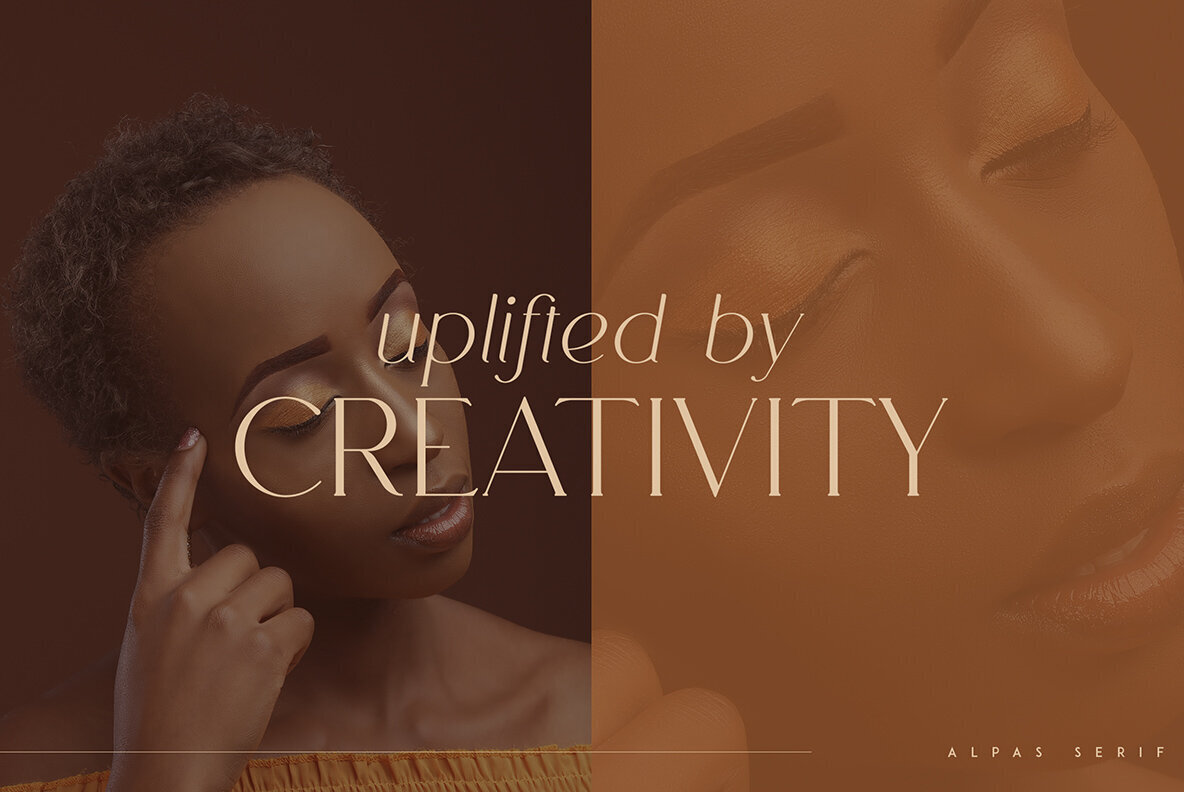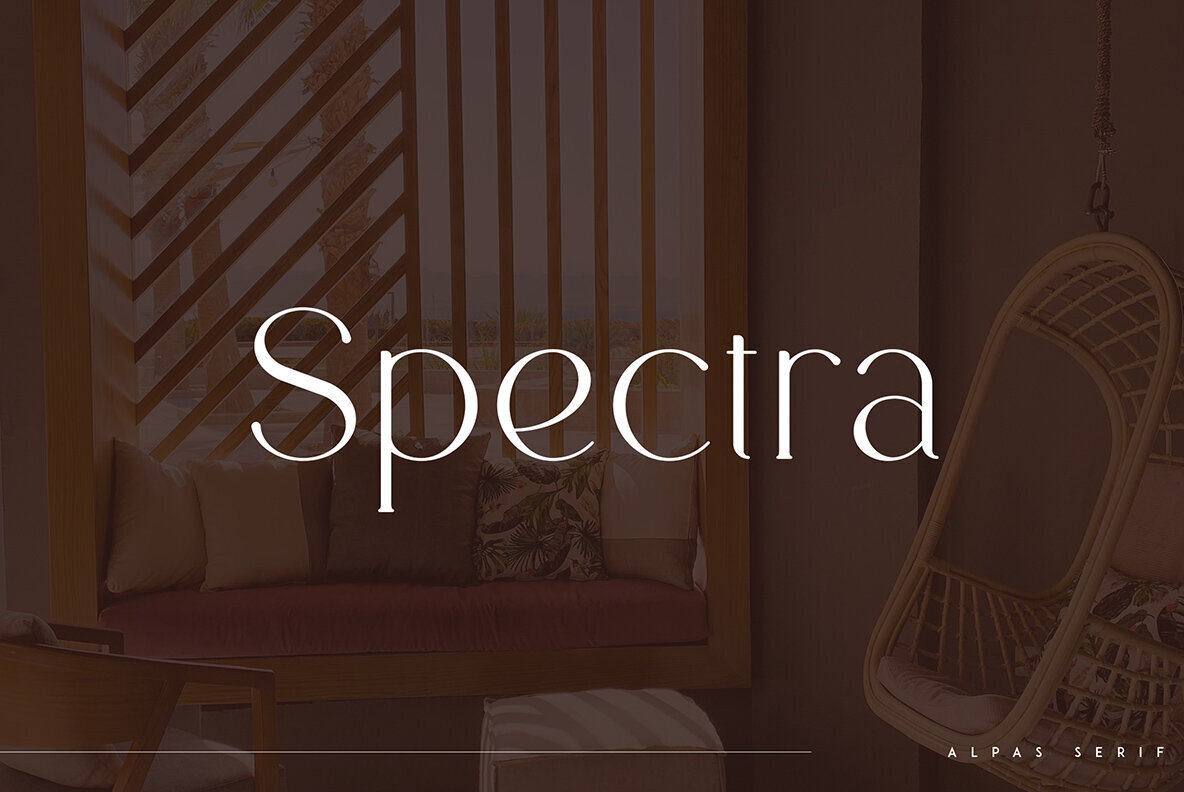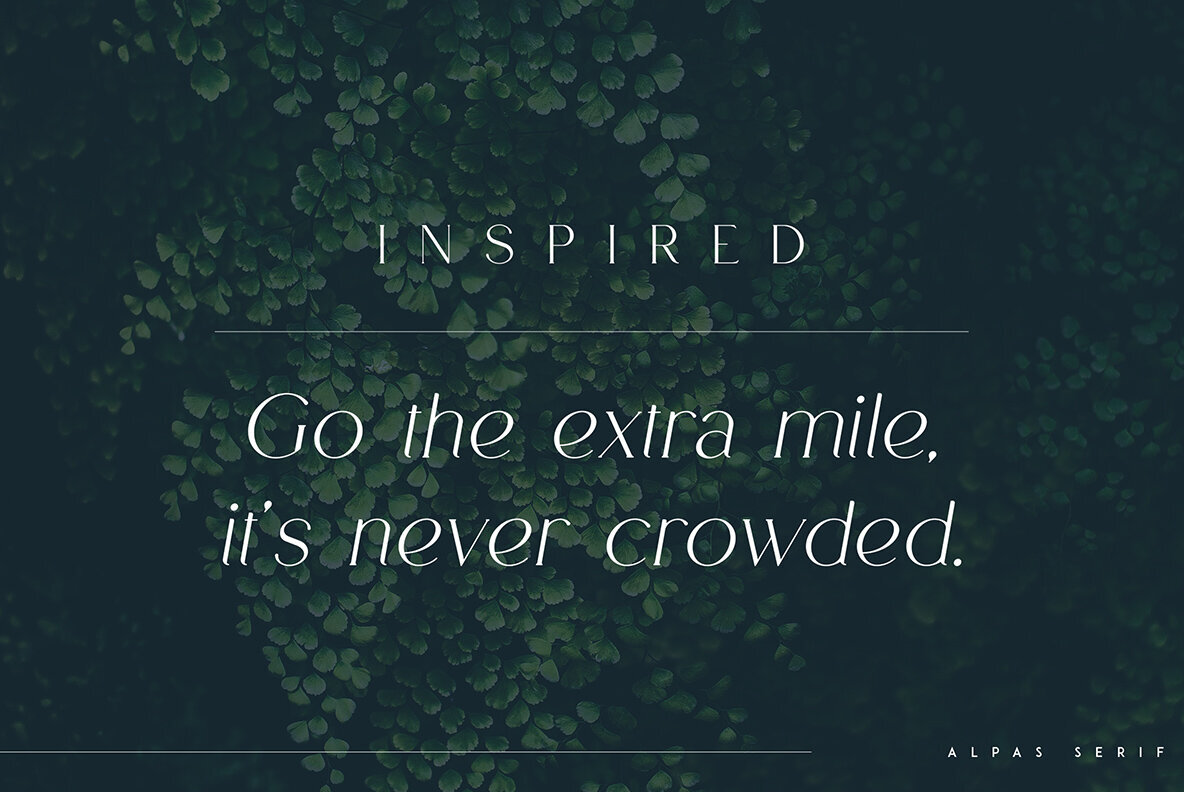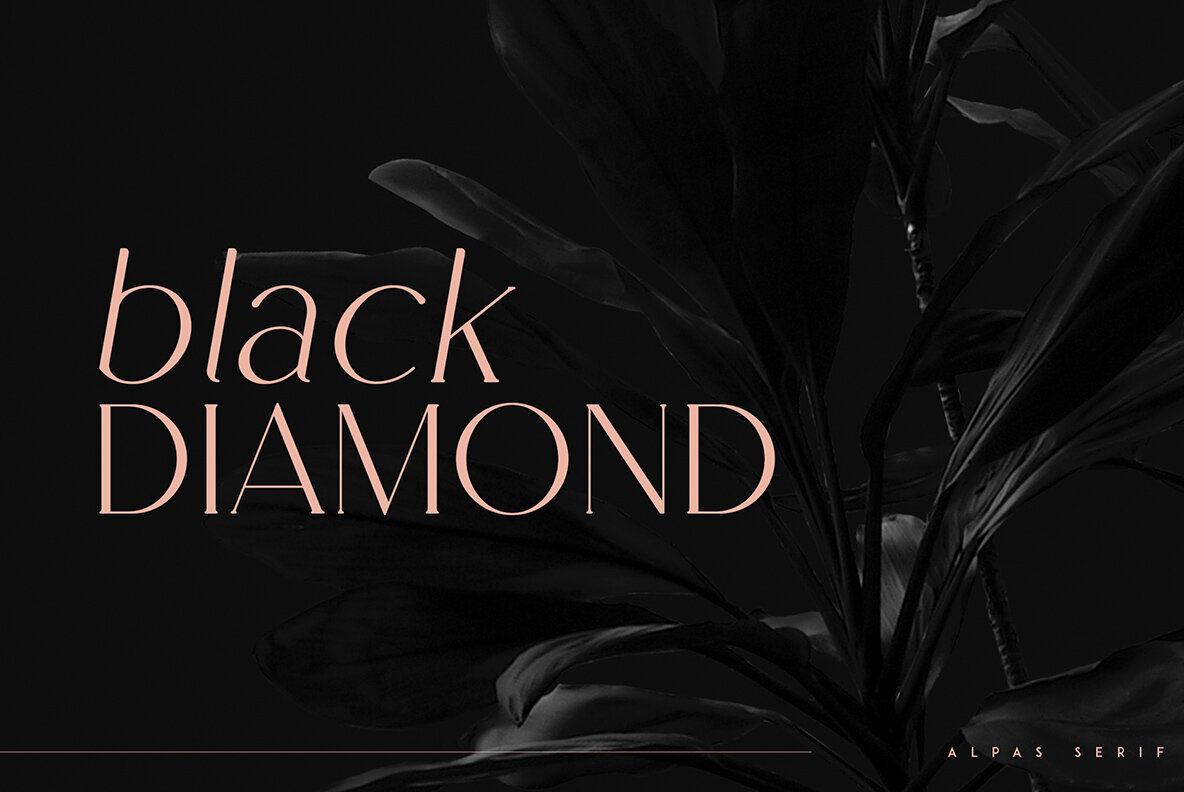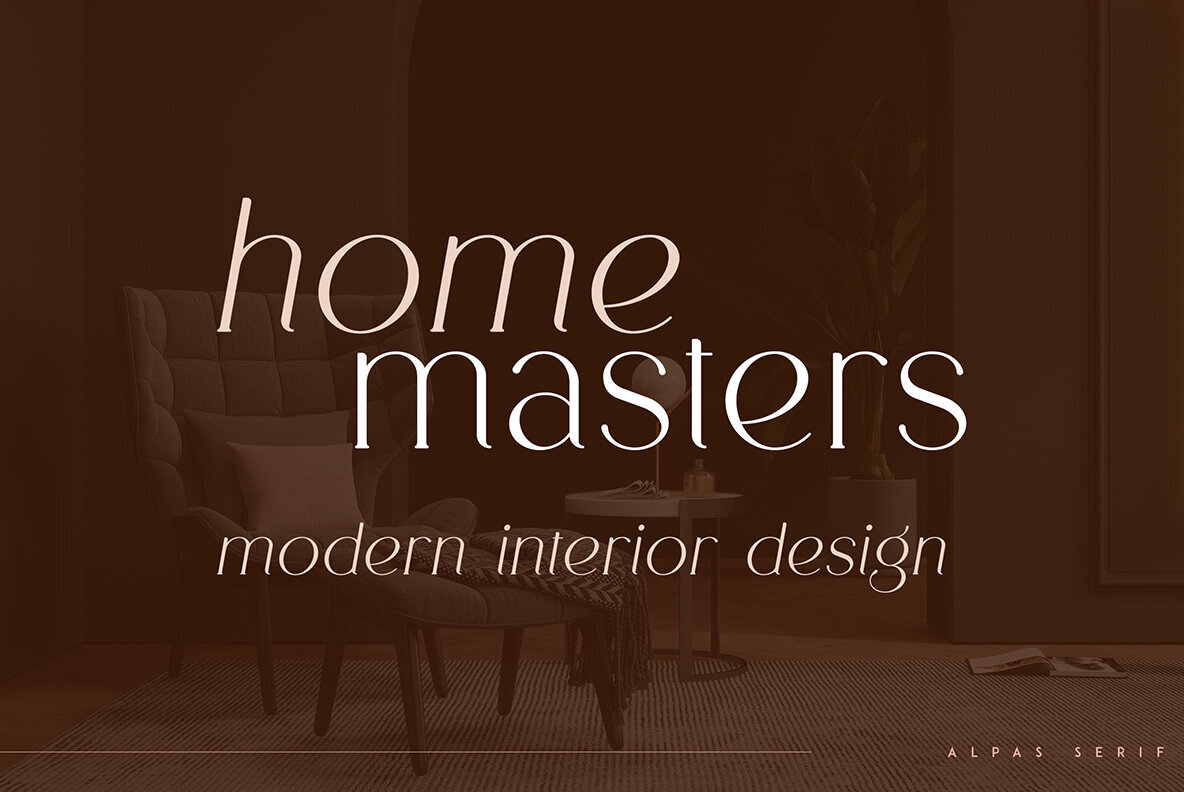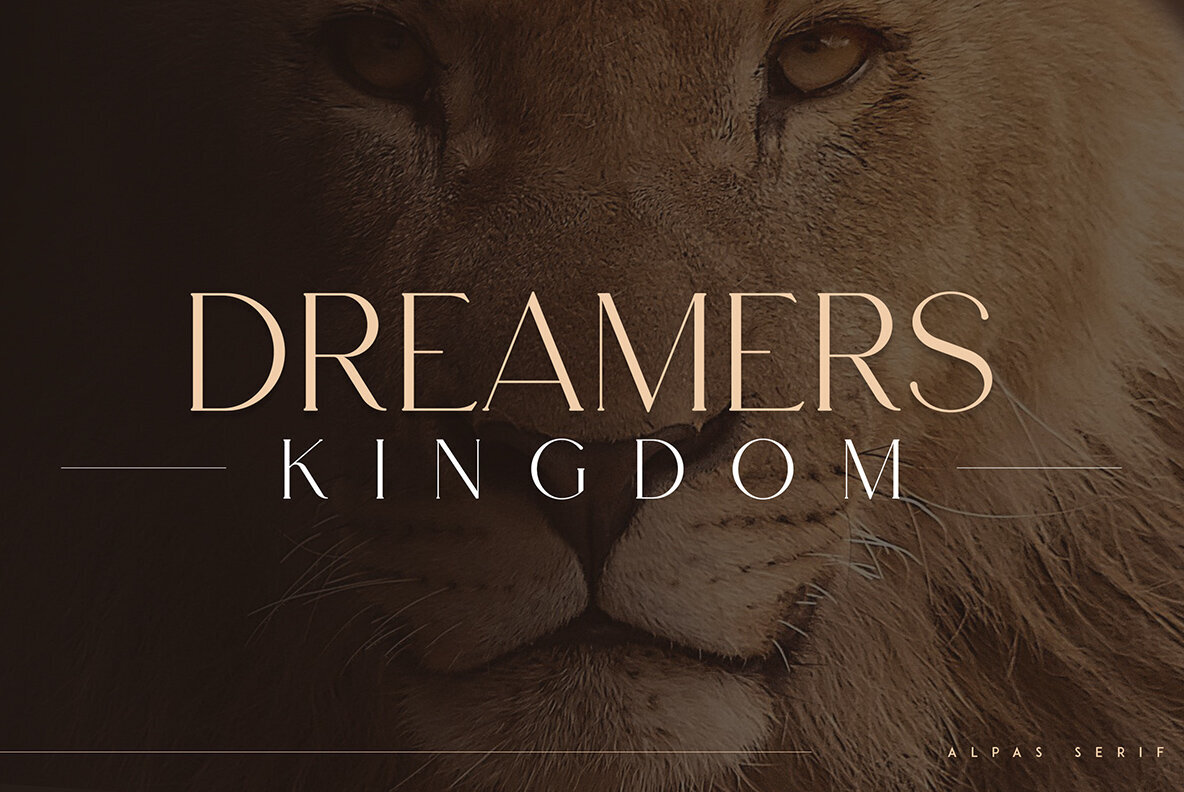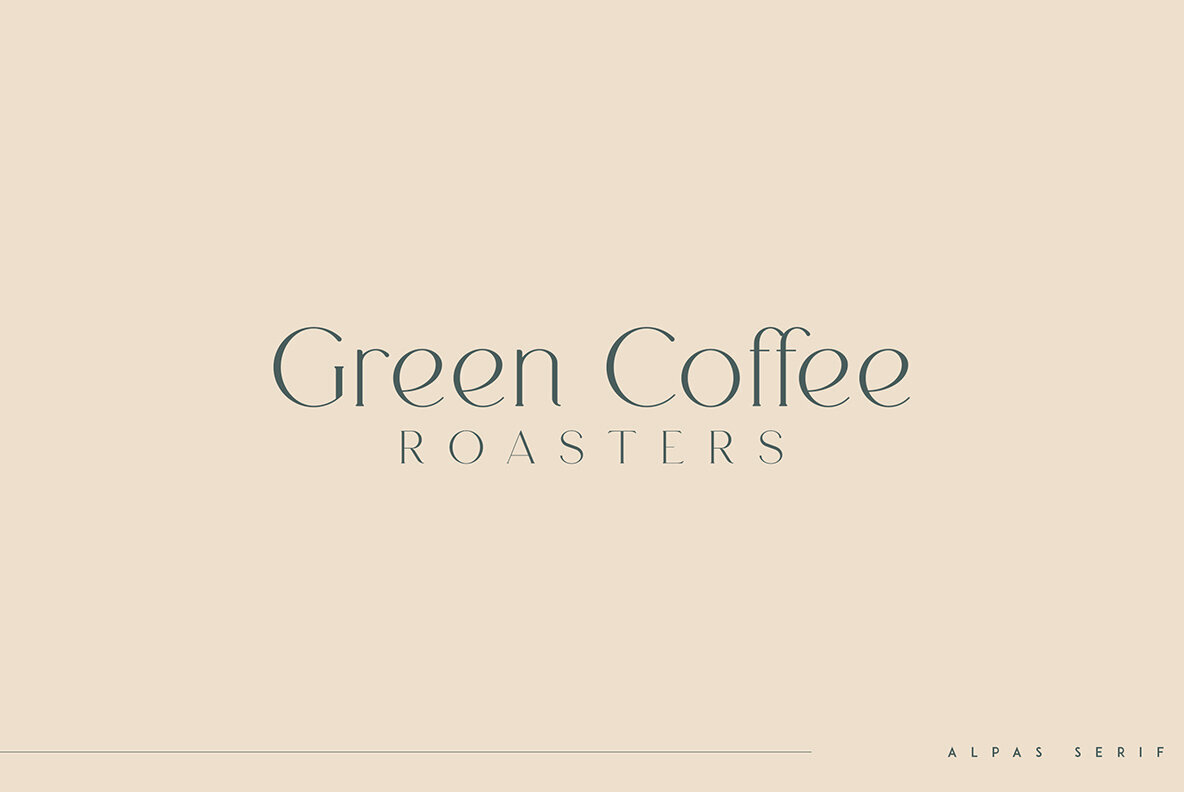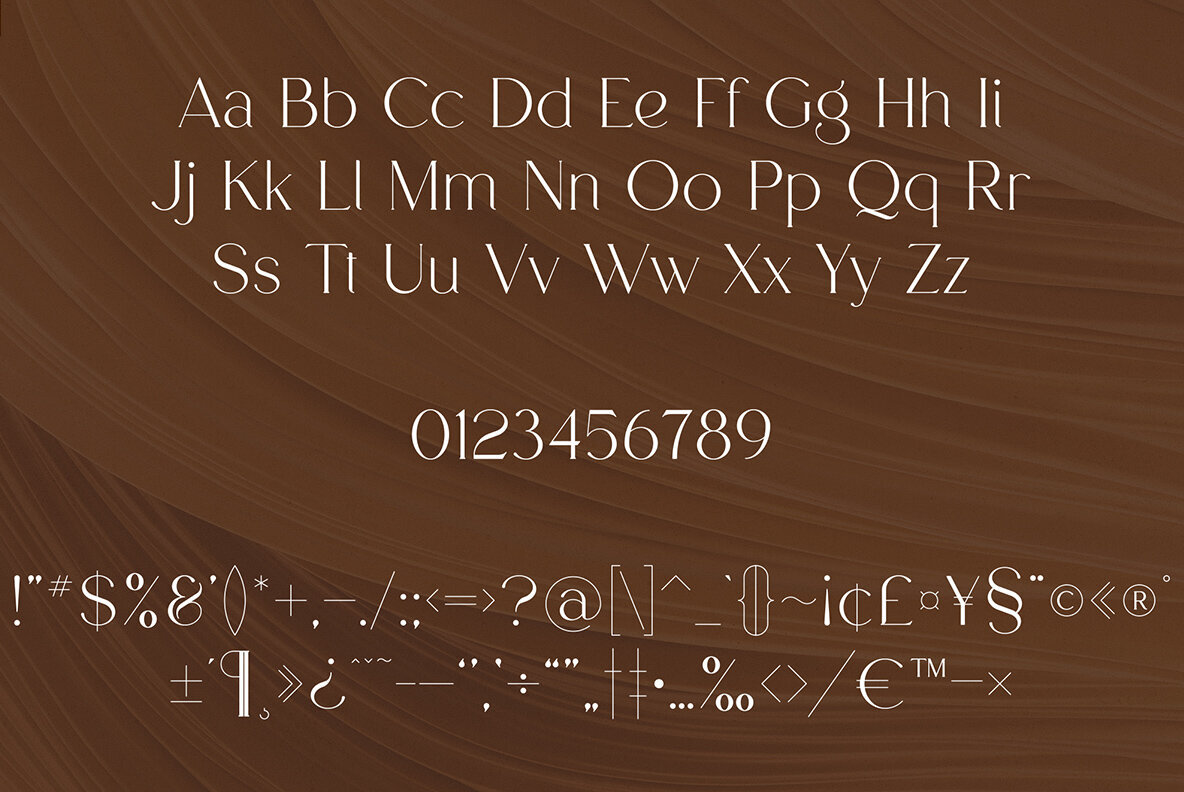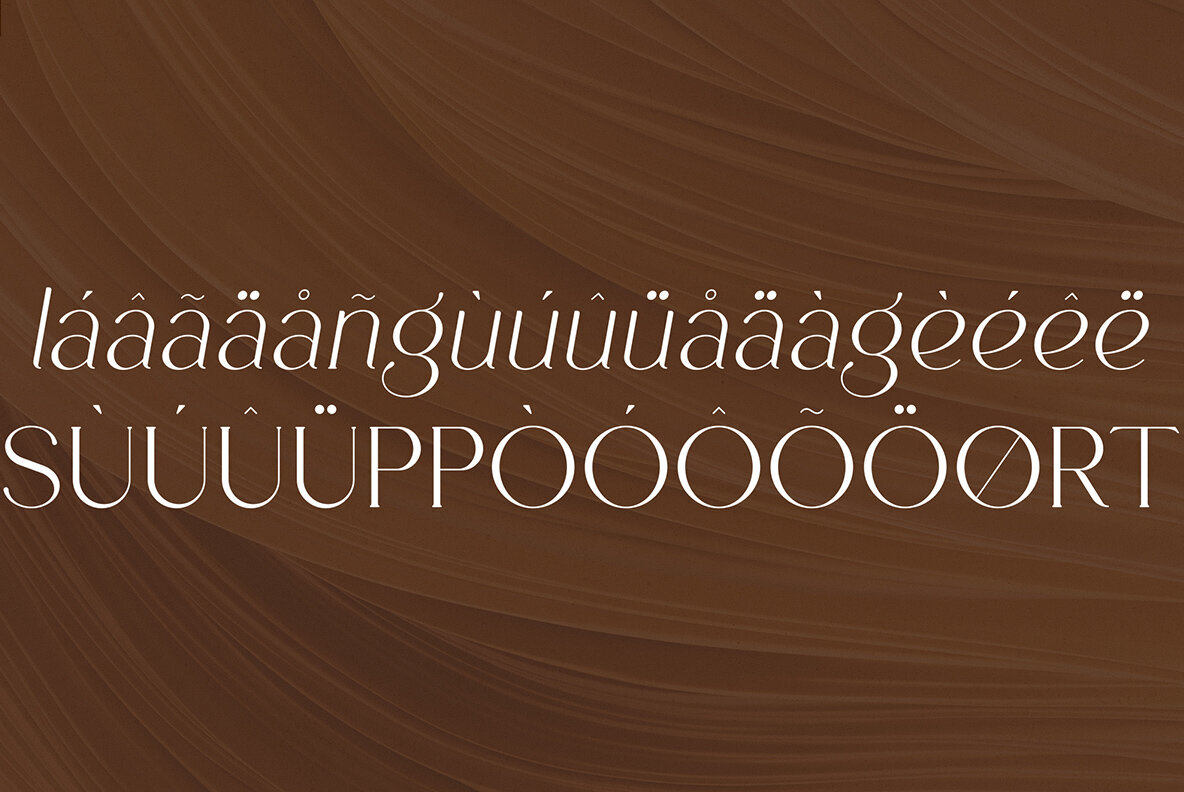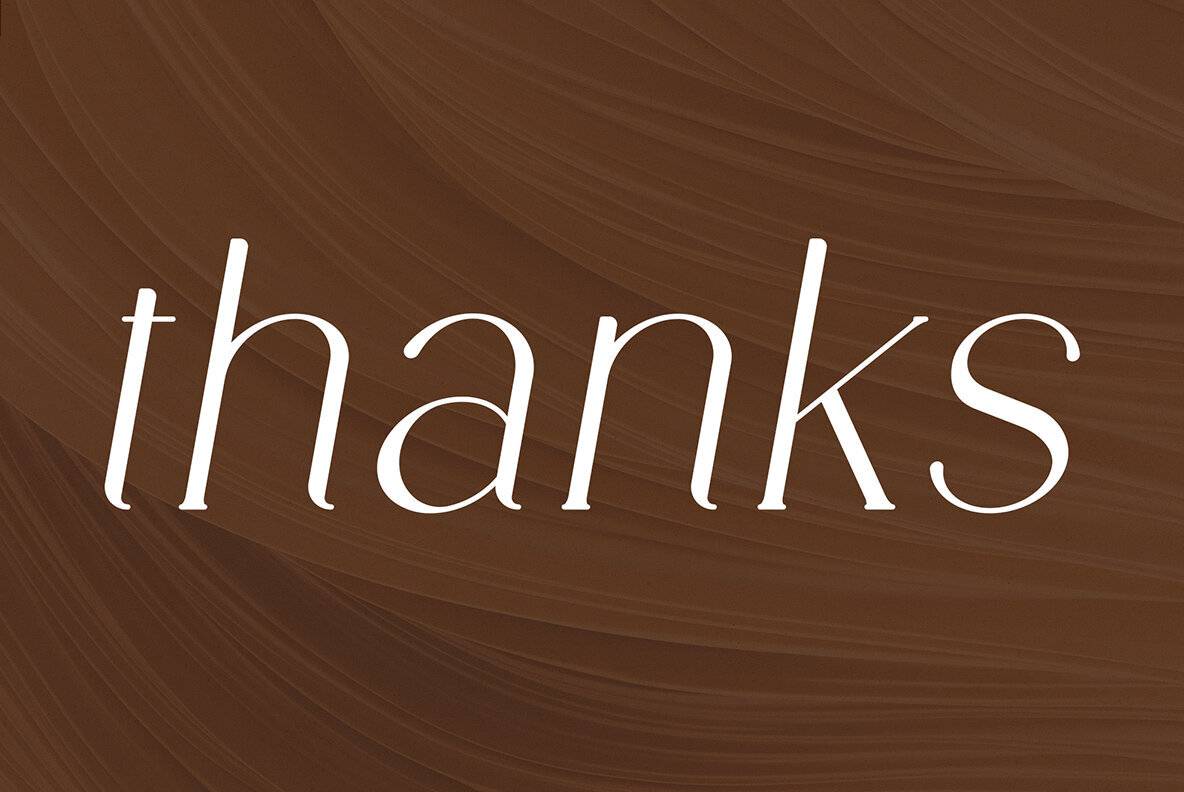
Alpas Font
Alpas is a rounded, soft serif typeface that brings a gentle sophistication to your design projects. With its extensive multilingual support, this font adapts seamlessly to diverse linguistic needs while maintaining its elegant appeal. Ideal for branding projects, homeware designs, and product packaging, Alpas enhances any layout with its stylish presence. Whether you are crafting magazine headers or adding a chic overlay to background images, Alpas provides flexibility in both large and small sizes.Alpas: Soft Serif Typeface With Versatility